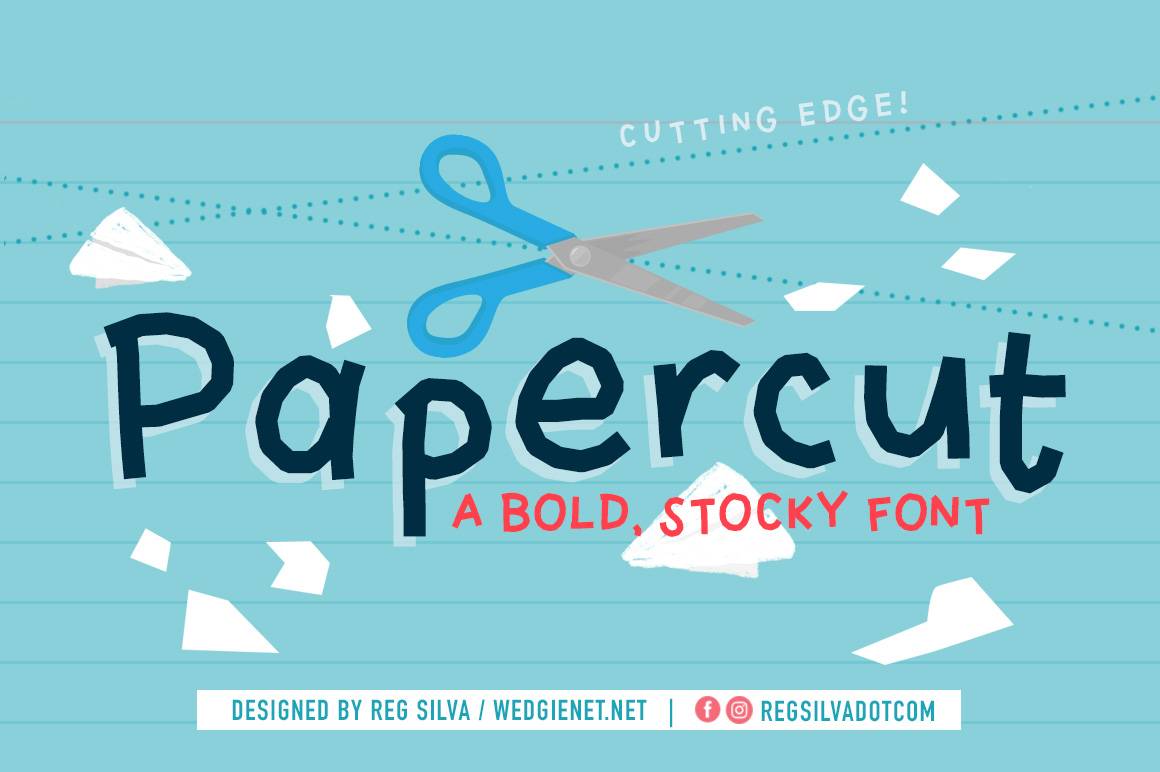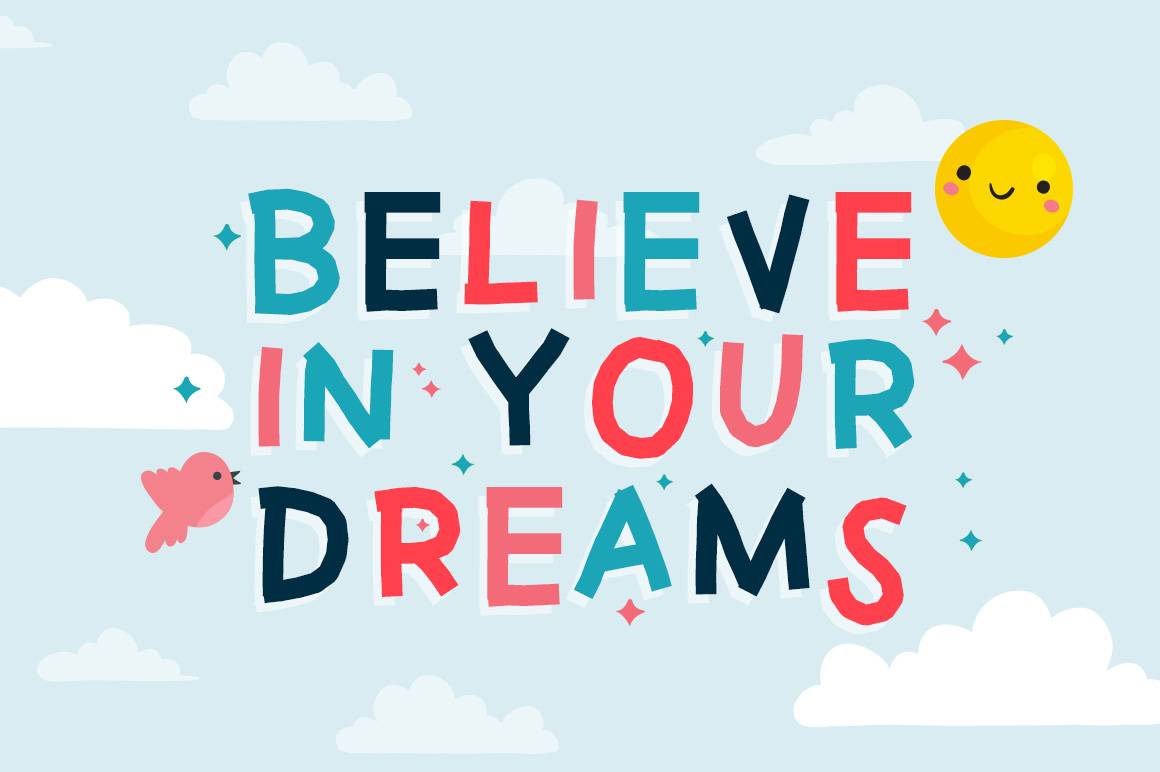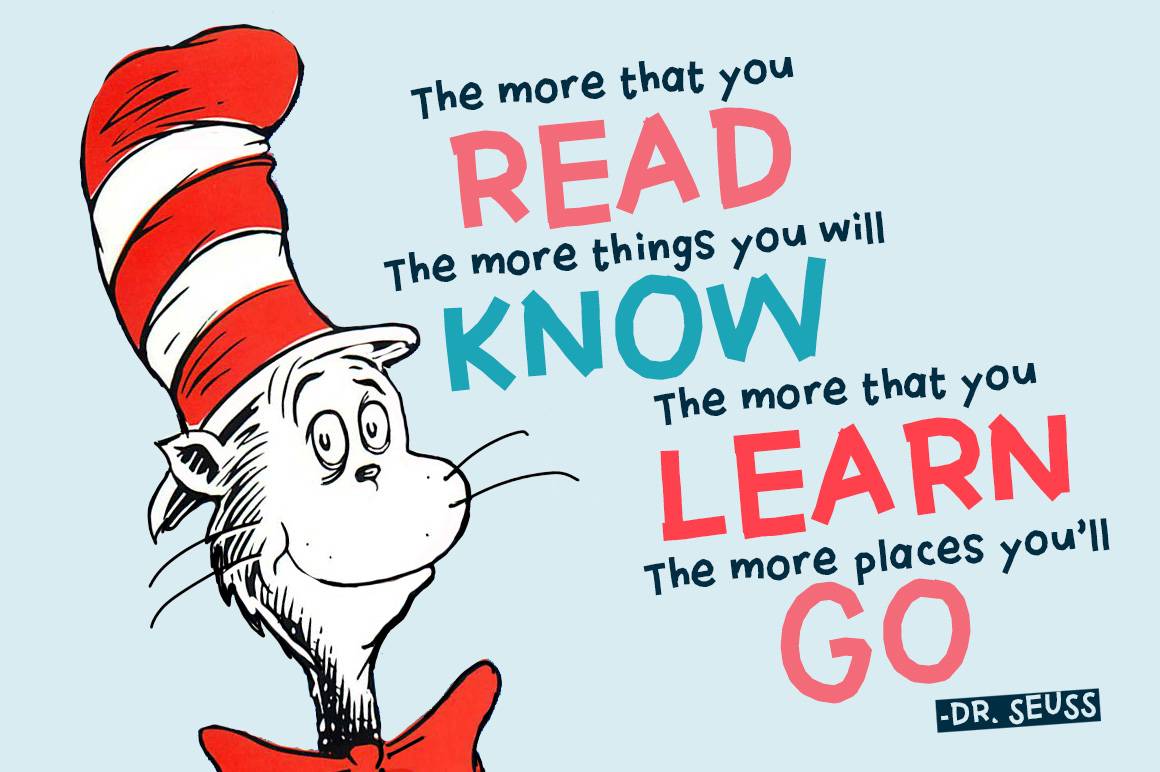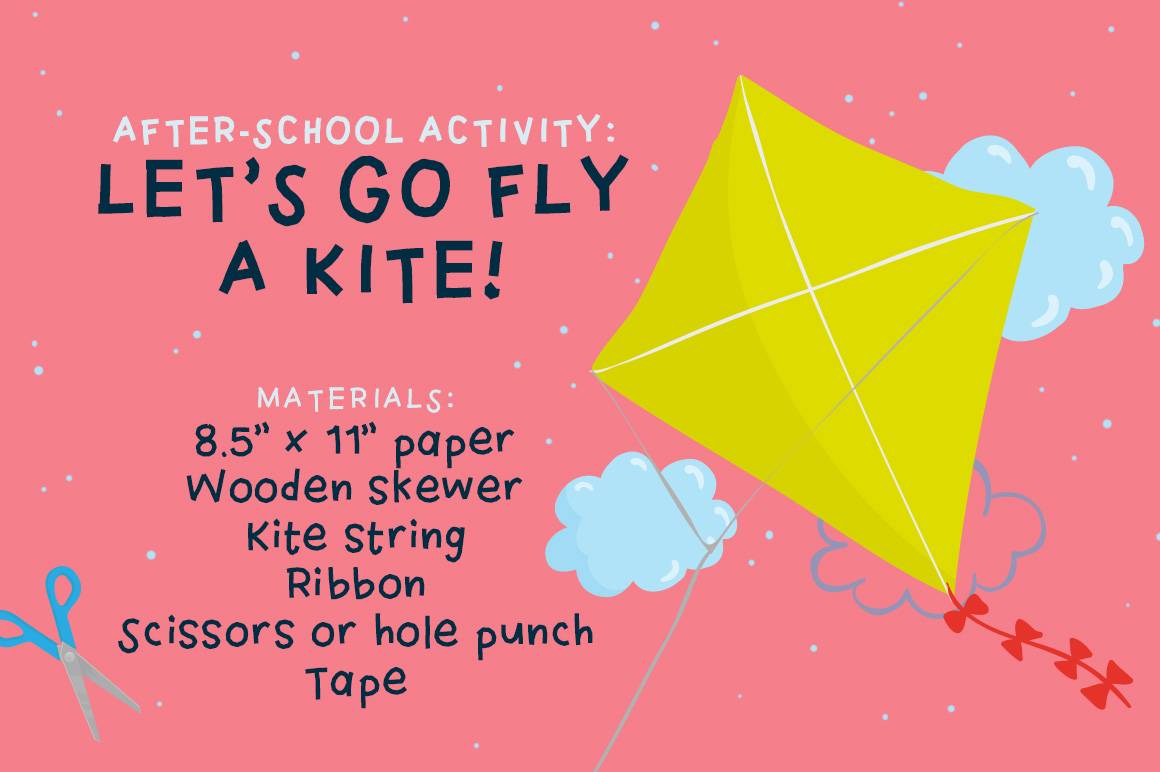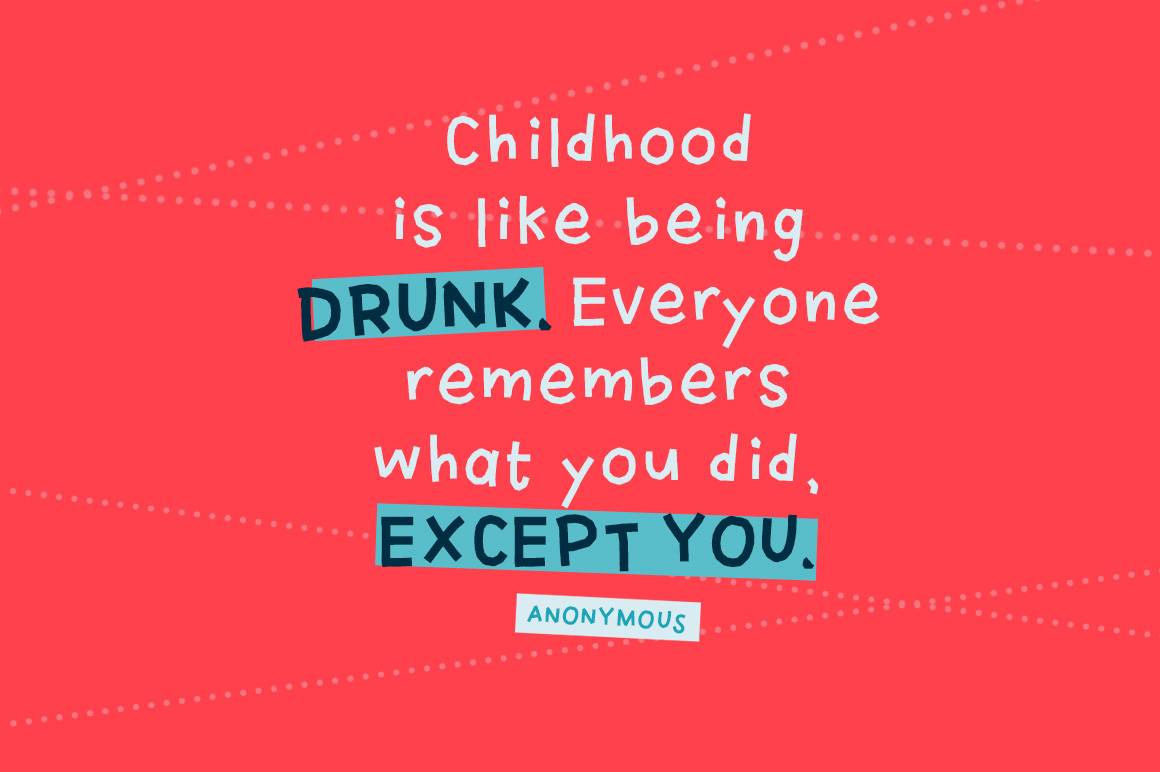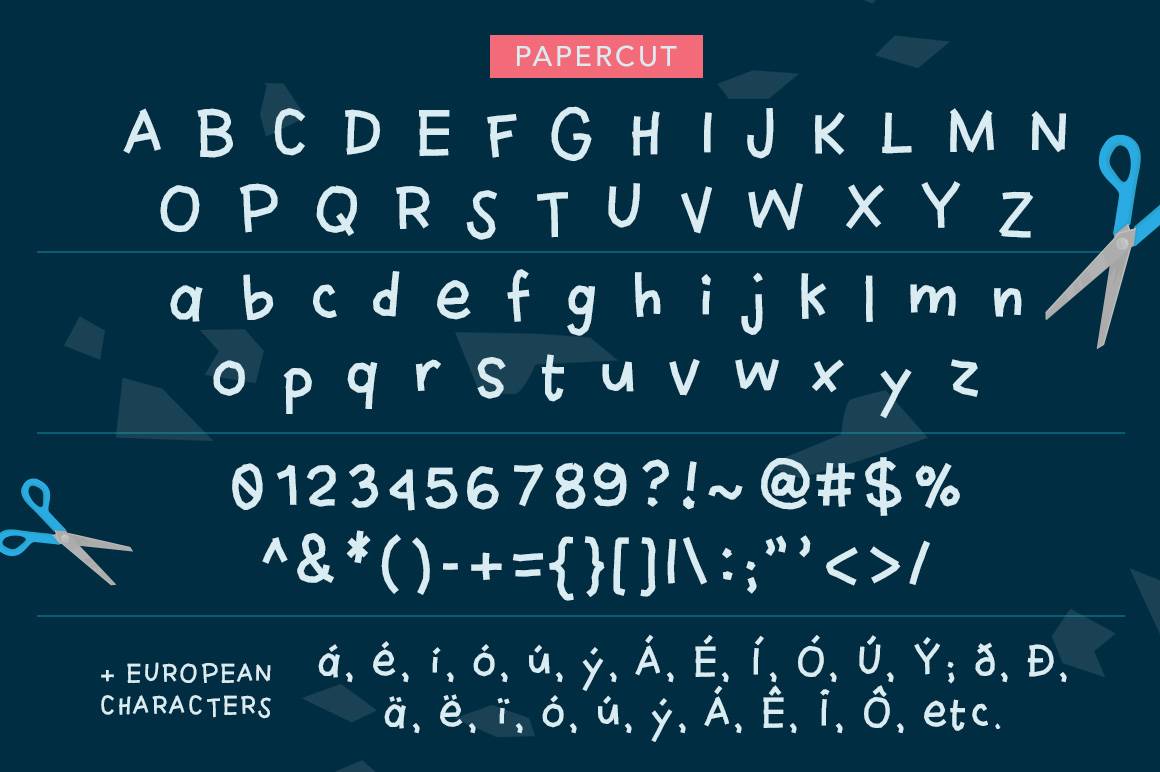
Papercut Display is a playful and informal sans serif font with a hand-drawn, slightly uneven style that evokes a casual, friendly feel. Its irregular strokes and quirky letterforms give it a warm, approachable personality, making it ideal for creative projects, children's materials, and branding that seeks a fun, personal touch. This font works best in headlines, logos, or packaging where a unique and charming handwritten look is desired.
Papercut Display Font Demo
About Papercut Display Font Demo